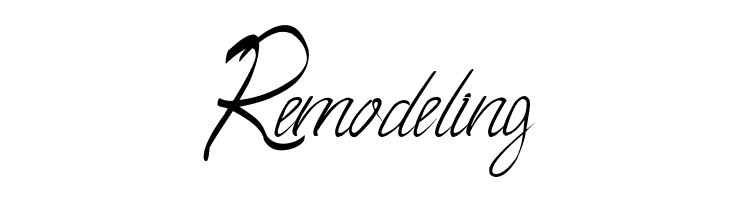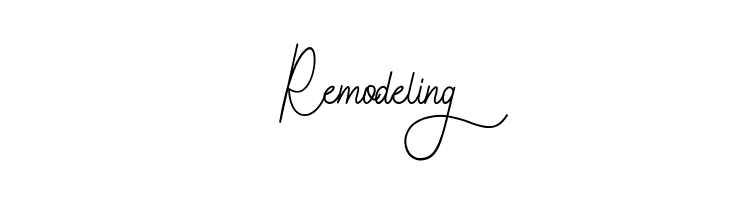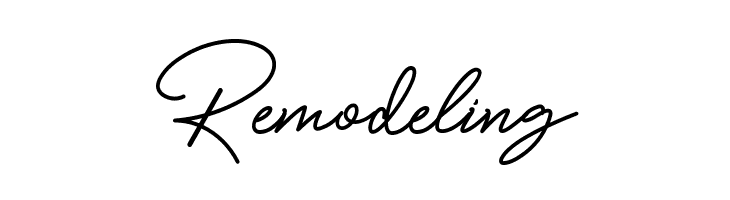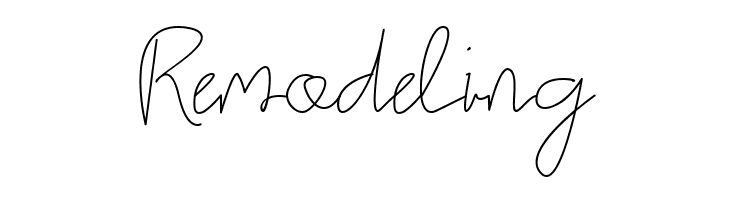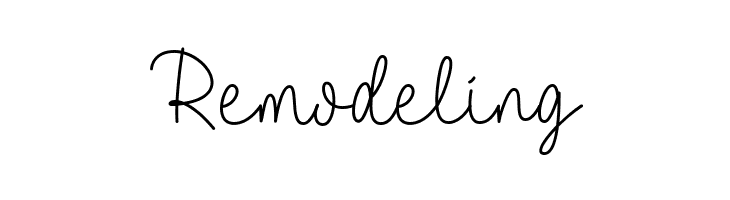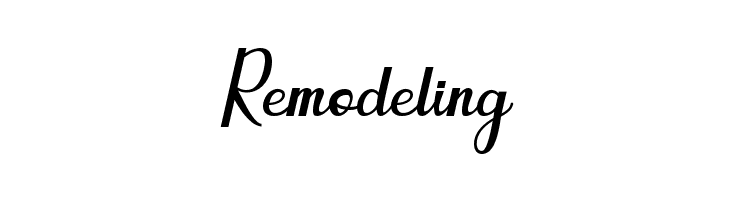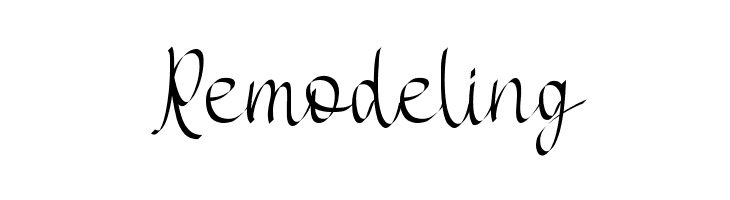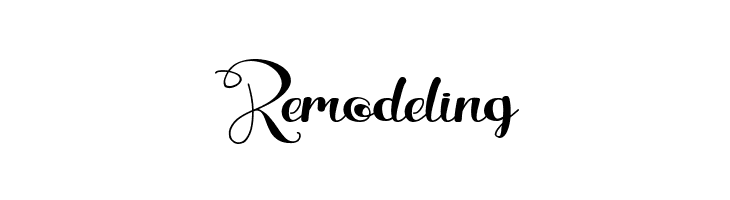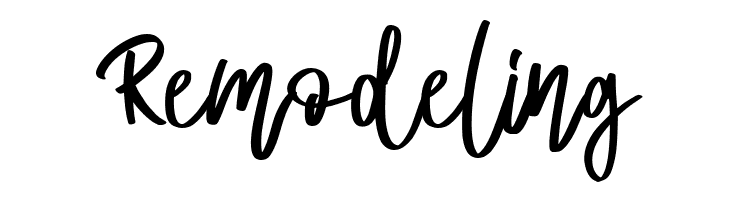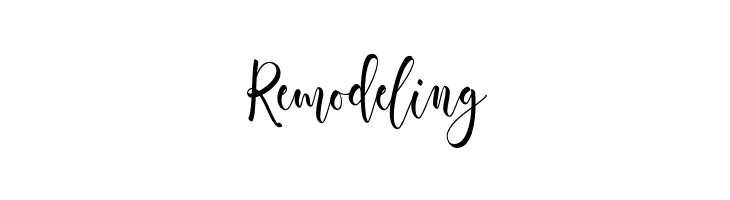
A modern, elegant script font with flowing, cursive characters.
An elegant and flowing script font with intricate flourishes.
An elegant, flowing script font with graceful curves and artistic flair.
A sophisticated and elegant script font with fluid, connected letterforms.
A fluid and elegant handwritten font with thin, continuous strokes.
A cursive, handwritten-style font with fluid, connected characters.
A modern, elegant font with angular uppercase and cursive lowercase letters.
An elegant, flowing script font with sophisticated cursive letterforms.
An elegant and decorative script font with intricate swirls and flourishes.
A bold, expressive handwritten font with a modern and dynamic style.
A lively and elegant script font with flowing, cursive letterforms and dramatic flourishes.
A playful and elegant script font with a handwritten, cursive style.
An elegant script font with flowing, cursive letterforms and refined swashes.
A flowing, elegant script font with smooth, rounded edges and consistent stroke width.
A lively handwritten font with fluid, expressive strokes.
A flowing, cursive font with elegant, connected letters and a handwritten style.
An elegant script font with flowing, interconnected letters and a classic calligraphic style.
A graceful calligraphic script with elaborate swashes and flowing lines.
An elegant script font with flowing, cursive lines and sophisticated flourishes.
A bold, expressive script font with a playful, handwritten style.
A flowing, cursive script font with elegant and connected letters.
A bold, italic script font with fluid, connected characters and strong visual impact.
A lively and energetic script font with bold, flowing letterforms.
A lively handwritten font with fluid strokes and elegant flair.
A dynamic and fluid handwritten font with a casual, energetic style.
A playful and elegant handwritten script font with a whimsical flair.
A whimsical, handwritten font with playful and fluid strokes.
A flowing and elegant script font with dynamic curves and decorative flourishes.
A lively, cursive script font with interconnected letters and a dynamic style.
A whimsical and elegant script font with flowing, interconnected letters.
A fluid and elegant script font with a dynamic, cursive style.
A playful and whimsical script font with a handwritten style.